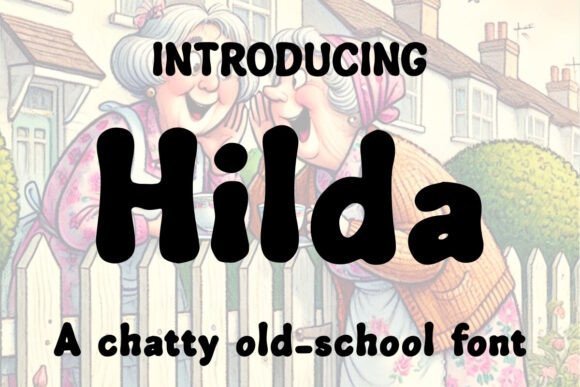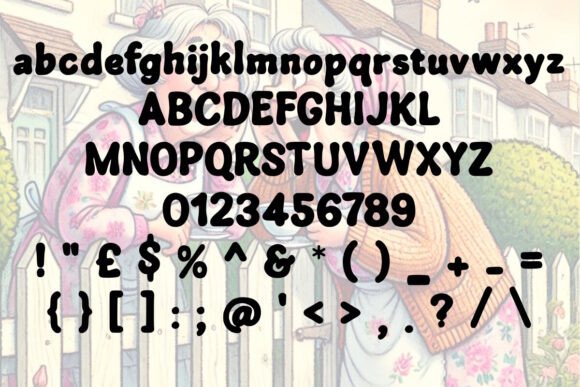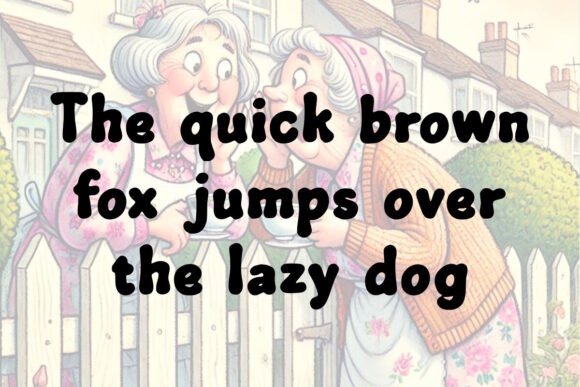
Meet Hilda: Your New Best Friend in Font Form
Have you ever been sipping tea with a friend, lost in conversation, and suddenly you’re both giggling uncontrollably at a silly memory? That’s the kind of warm and fuzzy feeling Hilda Font aims to evoke in your designs. Inspired by the timeless scene of two old ladies leaning over the garden fence, gossiping about everything and nothing, this charming font is sure to bring a smile to your face and a touch of personality to your projects.
Whether you’re crafting a humorous greeting card, a nostalgic poster, or a cosy book cover, Hilda Font is the perfect companion to make your designs feel like a friendly chinwag over a cuppa. With its warm, slightly wobbly charm and unmistakable character, Hilda brings a sense of approachability and whimsy that’s hard to resist. So why settle for a generic font when you can add a dash of Hilda’s unique personality to your next project?
Hilda Font Key Features
- Unique Characteristics: The font features a distinctive, hand-drawn aesthetic with subtle irregularities, giving it a personal and emotive feel.
Hilda Font Review
Overall, I think Hilda Font is a solid choice for those looking for a unique, hand-drawn feel. Here are some things that I think work well:
- ✨ The font’s quirky, whimsical nature makes it perfect for titles and headings in children’s books, magazines, or any project that needs a touch of playfulness.
- ✨ The font is highly customizable, with a wide range of weights, styles, and sizes available, making it easy to adapt to different design needs.
- ✨ The font is also quite legible, even at smaller sizes, which is a big plus for designers who need to use it for body text.
However, there are a few limitations that I think are worth mentioning:
- ⚠️ The font’s lack of uniformity can sometimes make it difficult to read, especially in large blocks of text.
- ⚠️ The font’s high x-height can sometimes make it look a bit too chunky, especially in smaller sizes.
Overall, I think Hilda Font is a great choice for designers who are looking for a unique, hand-drawn feel. While it may not be perfect for every project, it’s definitely worth considering for the right kind of design.
For optimal results, use Hilda font for titles, headings, and other emphasis text.
It’s also ideal for creating a vintage or distressed look in your designs.